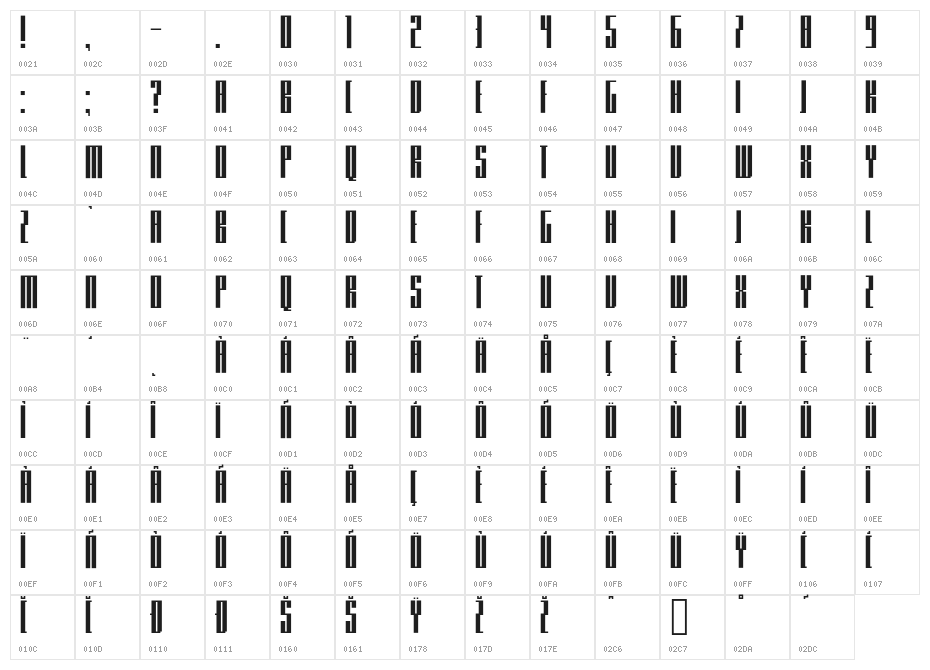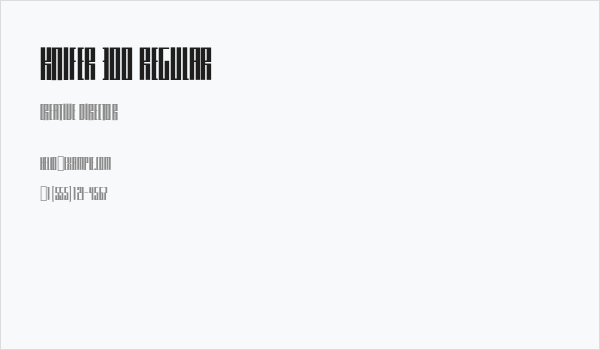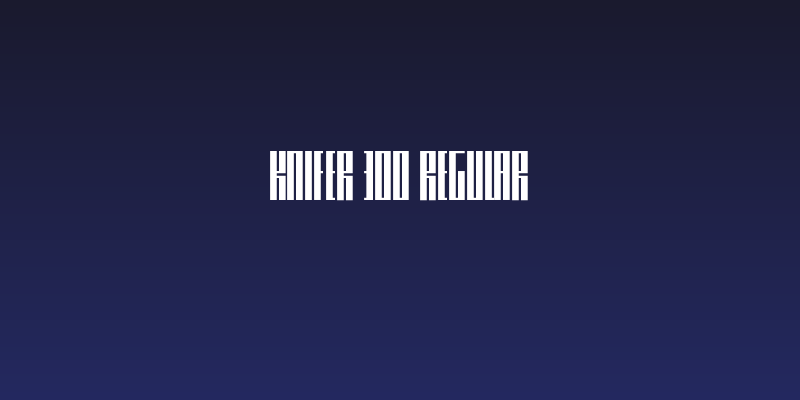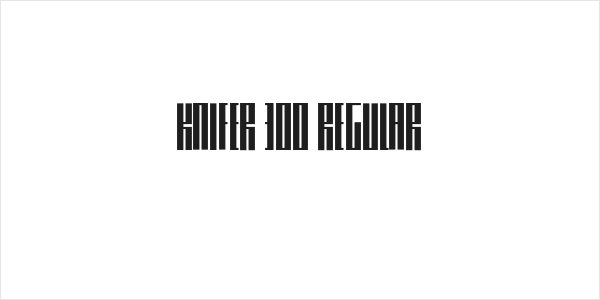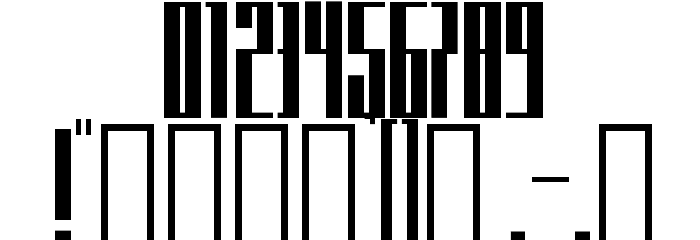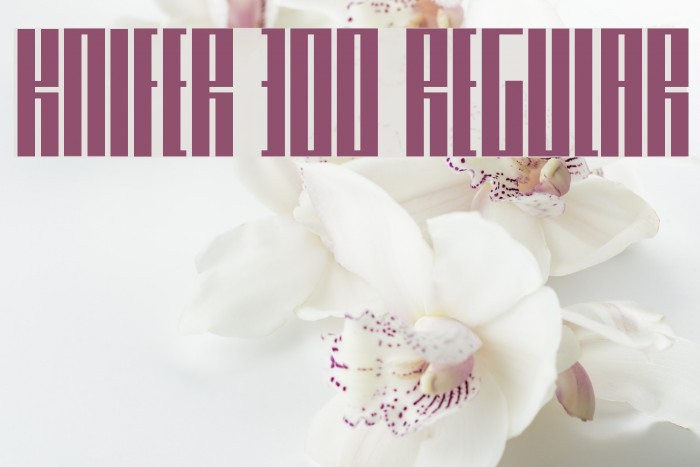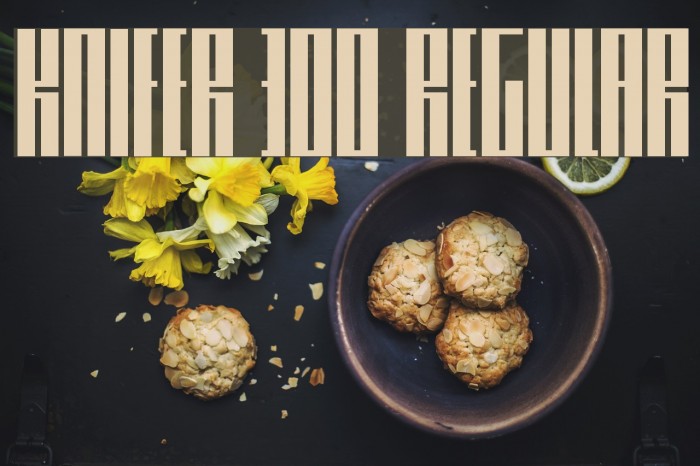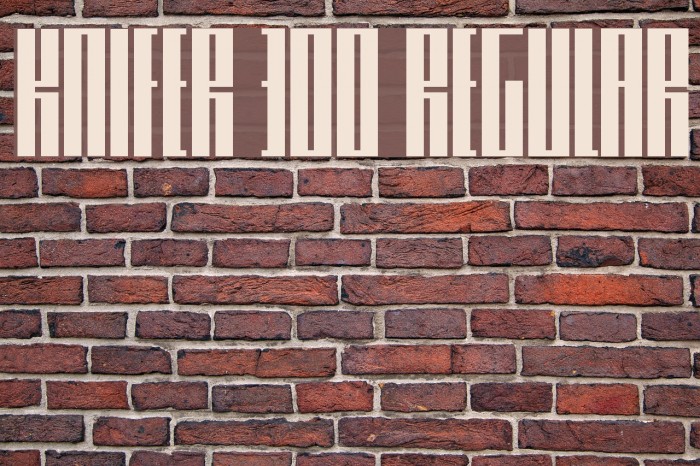
Knifer 300 Regular Font
Knifer 300 Regular Description
This font features a bold, geometric design with a strong emphasis on vertical lines and rectangular shapes. Each character is constructed with a uniform thickness, creating a cohesive and structured appearance. The uppercase and lowercase letters maintain a consistent height, contributing to a monospaced feel. The numerals and special characters follow the same design principles, ensuring uniformity across all glyphs. The overall style is modern and industrial, making it suitable for projects that require a strong visual impact.
| Proposed Projects | Ideal for branding, posters, and headlines that require a bold and modern aesthetic. |